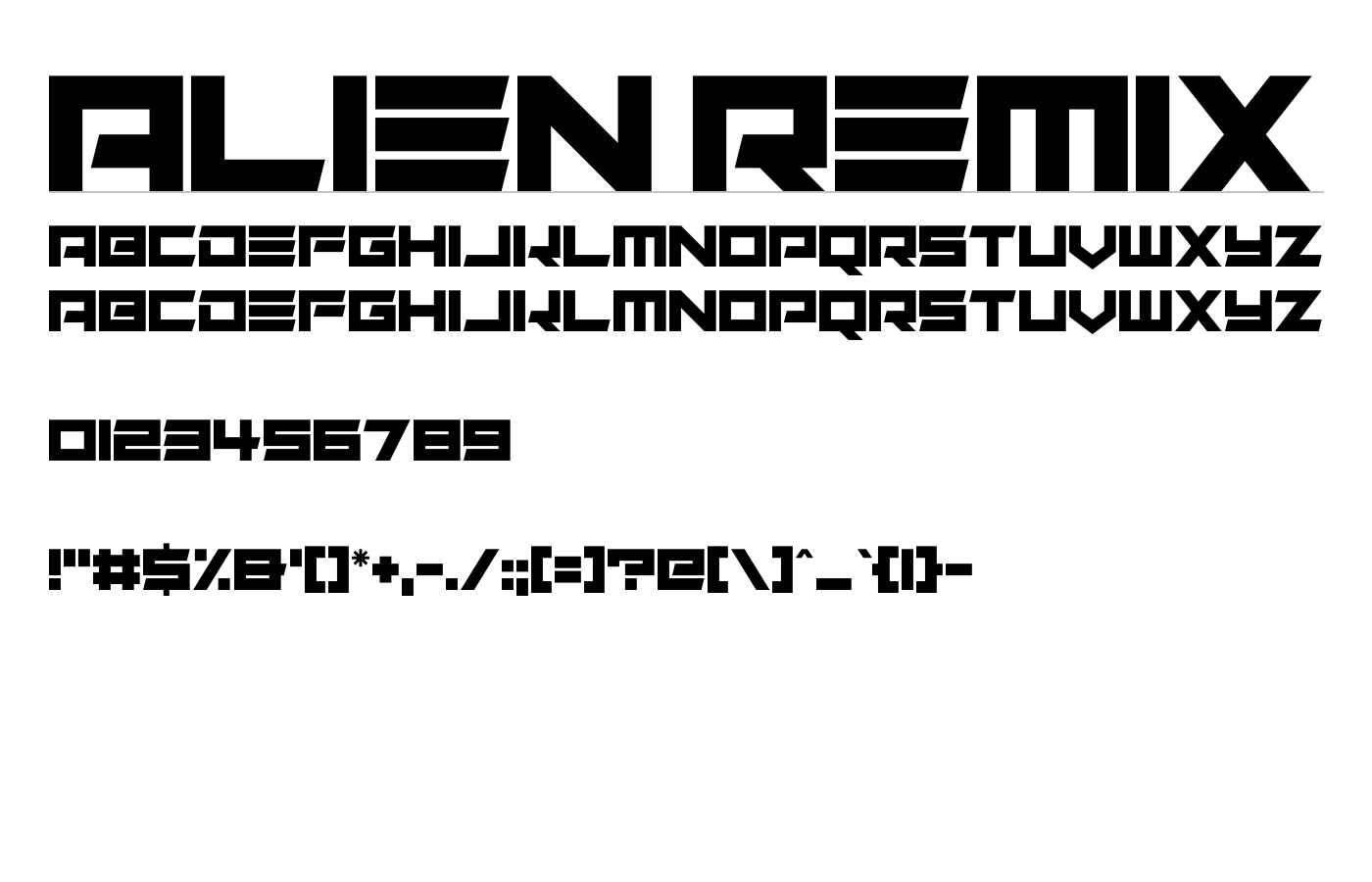
Alien Remix is a bold, futuristic sans serif font that features geometric and blocky letterforms with sharp, angular cuts and a strong, industrial character. Its compact width and uniform stroke weight give it a modern, tech-inspired feel, making it a great choice for sci-fi themes, digital branding, gaming logos, and eye-catching headlines where a distinctive and edgy style is desired.
Alien Remix Font
About Alien Remix Font